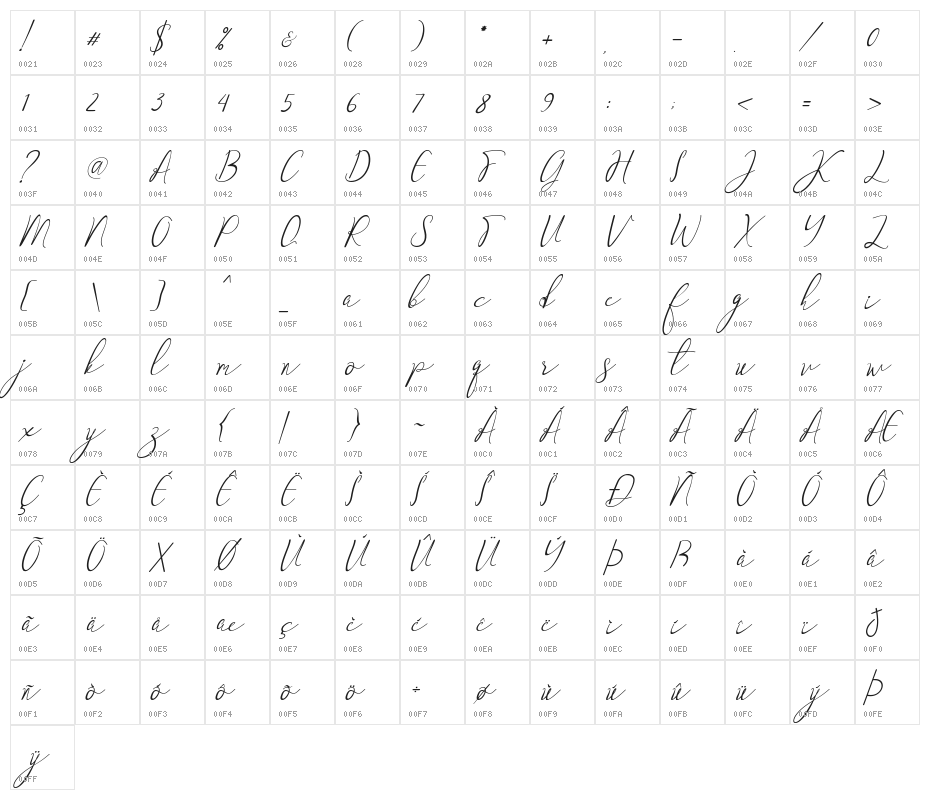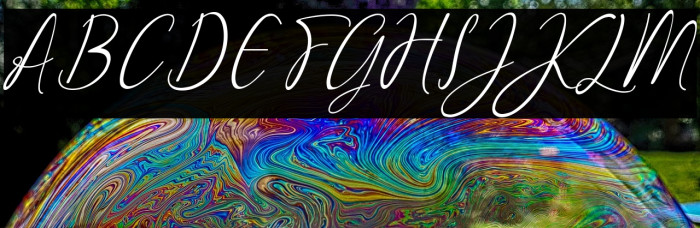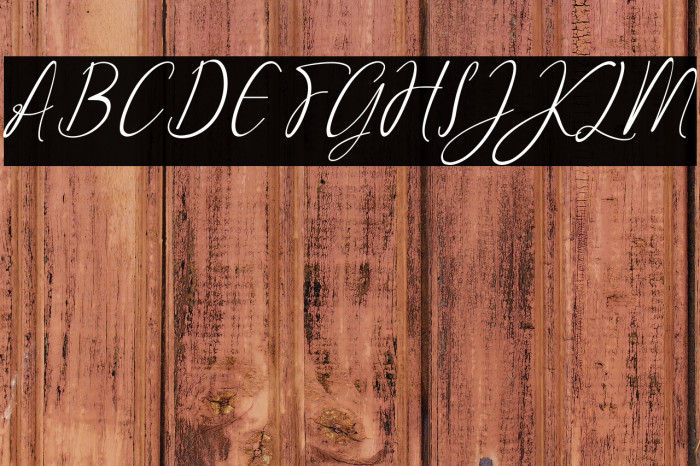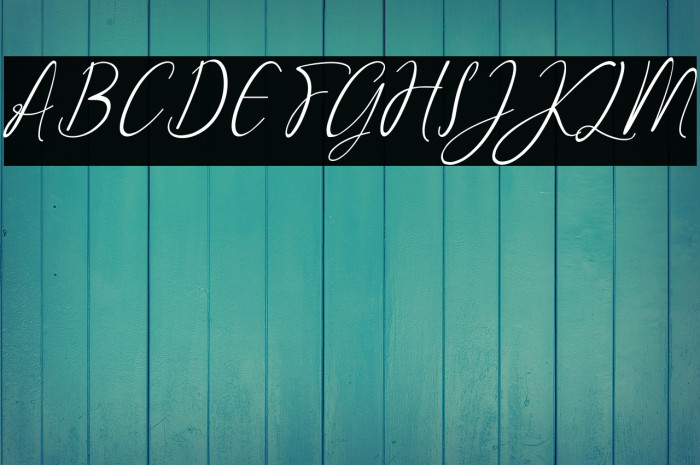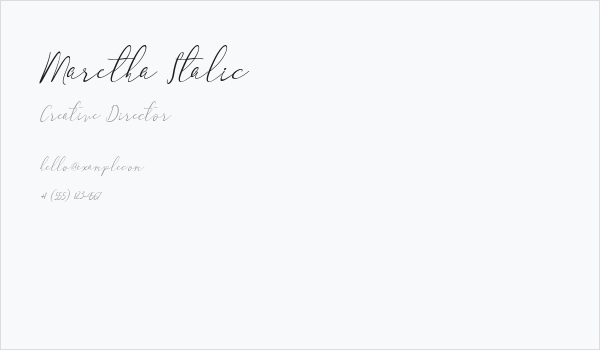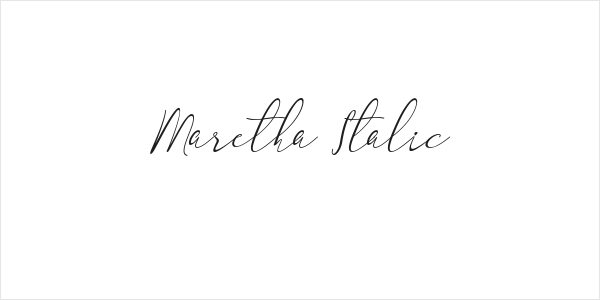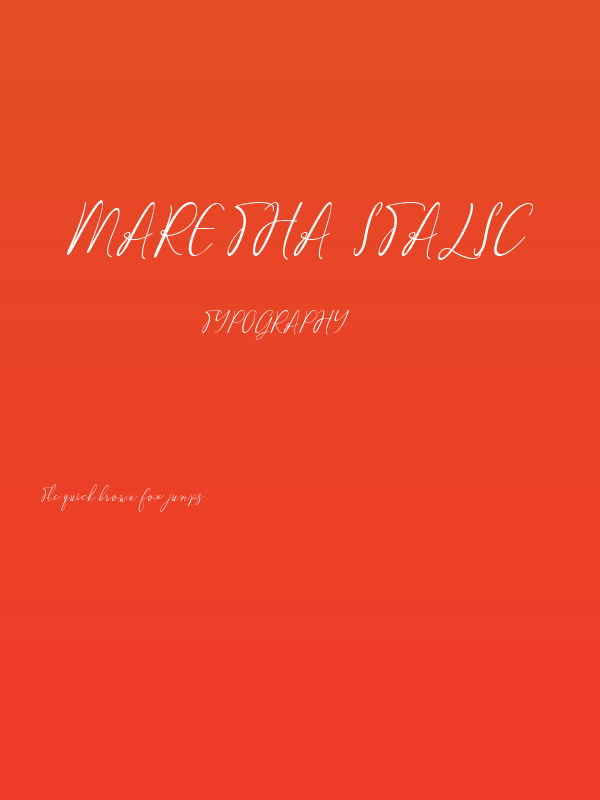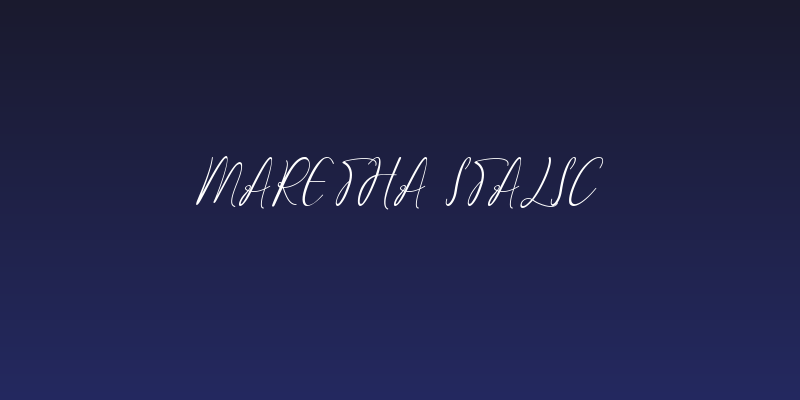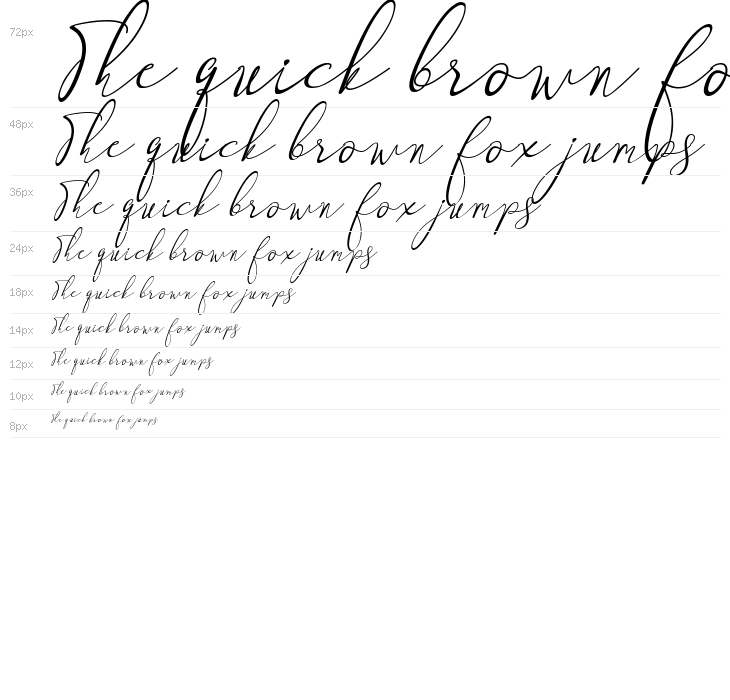
Maretha Italic Font
Maretha Italic Description
This elegant script font features a flowing, cursive style with smooth, connected strokes that give it a graceful and sophisticated appearance. The letters are slightly slanted, enhancing the fluidity and dynamic nature of the design. The uppercase letters are ornate and stylish, while the lowercase letters maintain a consistent rhythm, making it suitable for creating a harmonious text flow. The numerals and special characters complement the overall aesthetic, adding versatility to the font. The thin, delicate lines and subtle curves contribute to its refined and polished look, making it ideal for projects that require a touch of elegance.
| Proposed Projects | Ideal for wedding invitations, elegant branding, greeting cards, and upscale packaging designs. |